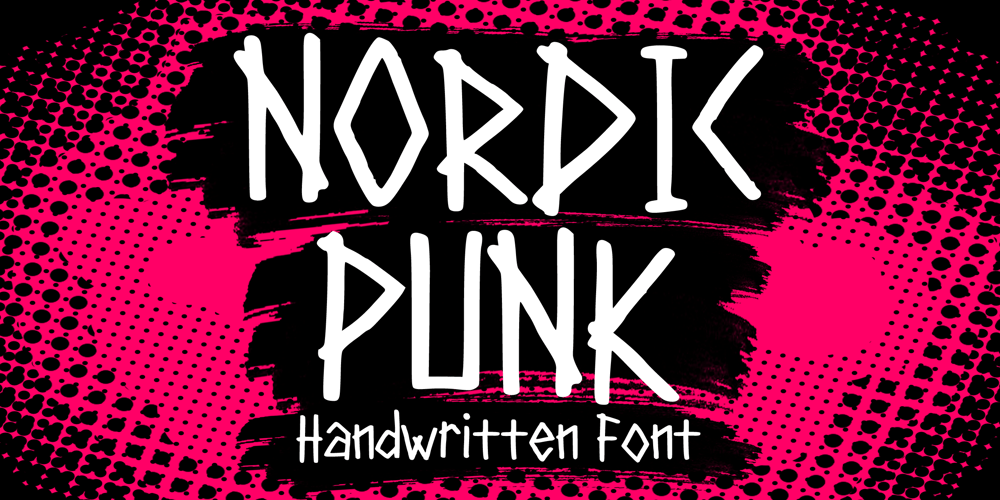
Nordic Punk
Nordic Punk font
Nordic Punk Font Family was designed by Gabriel Valentinus and published by Mvmet. Nordic Punk contains 1 styles and family package options. Nordic Punk is a decorative display typeface inspired by the 90s punk scene. It will elevate a wide range of design projects to the highest level. You can use this font for many design ideas such as stickers, t-shirt designs, amazing logo designs, magazine or book covers, comics, cartoon drawings, and many more. This font will add a cool touch to your designs!